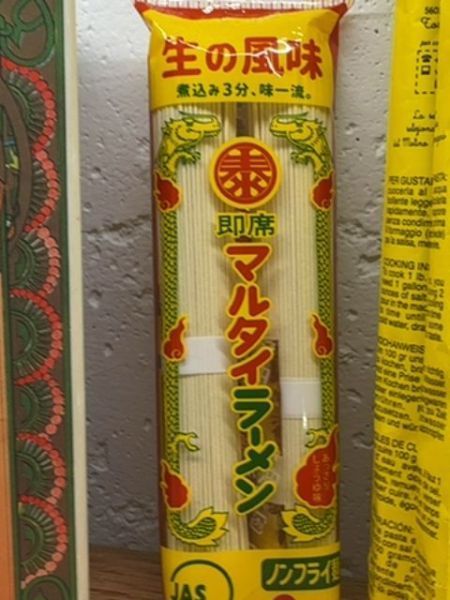
Marutai Ramen
Instant ramen noodles designed for quick and easy preparation, typically ready in just a few minutes by boiling.
The typography uses bold, rounded characters in red and yellow, which evoke a sense of urgency and attention. The vertical arrangement of the text mimics traditional Japanese script layout, enhancing the authenticity of the product.
The packaging is a cylindrical wrap with vibrant colors, prominently featuring red and yellow. There are traditional Asian motifs such as dragons, which suggest authenticity and cultural heritage.
- Instant noodles that typically only require boiling water to prepare.
- Features a traditional dragon design often associated with strength and power in Asian cultures.
- Marutai is a well-known brand in Japan, recognized for its authentic taste.